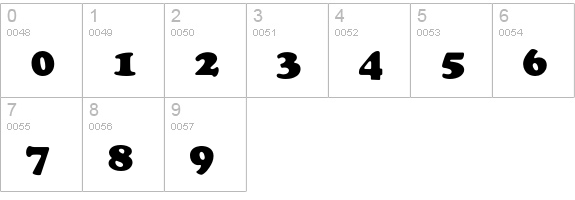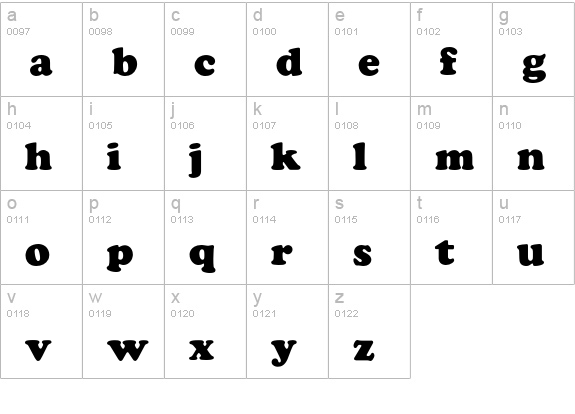
Cooper Black Regular is a maximum-weight, dramatic variant in the Cooper typeface family \xE2\x80\x94 well suited to maximum-impact headlines, posters, and packaging.
Cooper Black Regular is a timeless and versatile font that exudes warmth and friendliness. Its bold and rounded letterforms make it perfect for conveying a sense of approachability and familiarity in various design projects. Whether used for headlines, logos, or signage, Cooper Black Regular adds a touch of retro charm and elegance to any text. Best of all, Cooper Black Regular is available for free download at FontsMarket.com. This means you can easily access and use this classic font in your creative endeavors without any cost. Don't miss out on the opportunity to enhance your designs with the distinctive style of Cooper Black Regular. Download it now and start creating captivating visuals that stand out from the rest.